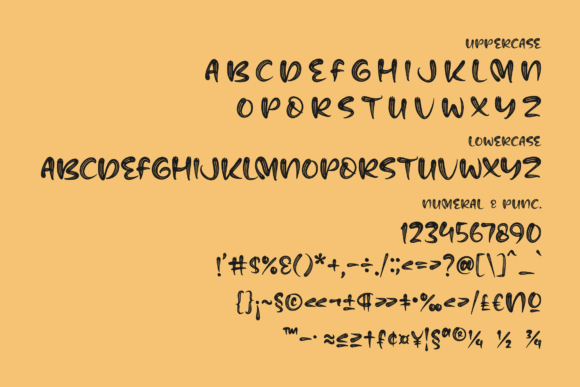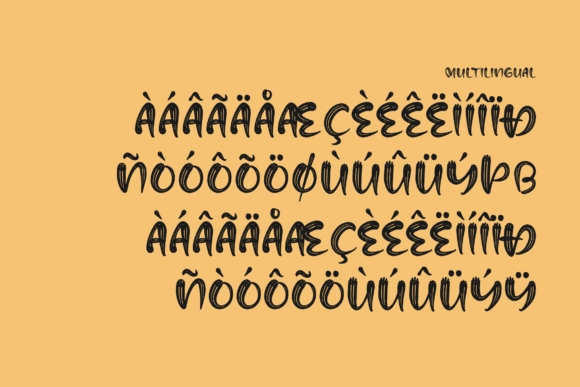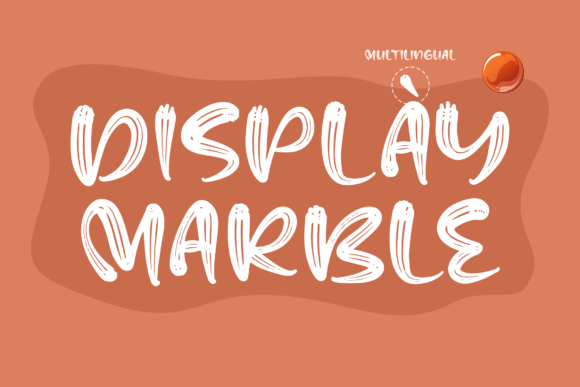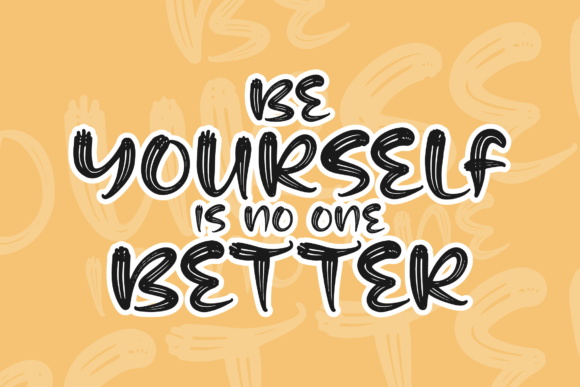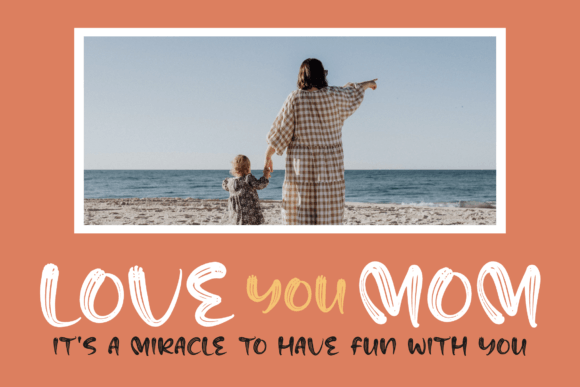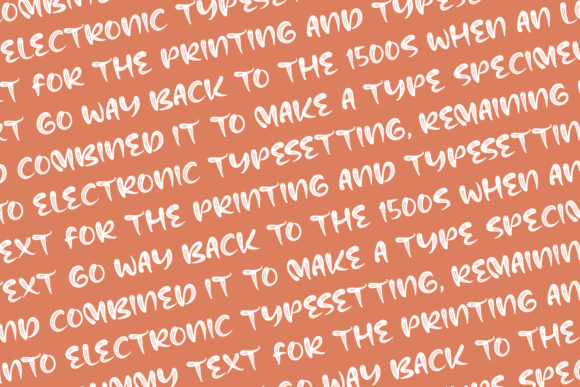
Bring Your Creative Ideas to Life with Display Marble Font
Have you ever stared at a blank canvas, waiting for that perfect spark to ignite your creativity? It’s a feeling many designers know all too well. But what if we told you that the key to unlocking your full potential lies in the perfect font?
Enter Display Marble Font, a stunning script display font designed to elevate your creative ideas to new heights. With its unique, hand-crafted design, Display Marble Font is perfect for adding a touch of sophistication and whimsy to your designs. Whether you’re working on a logo, a brochure, or a website, this font has the power to make your work stand out.
As a designer, you know that the right font can make all the difference. Display Marble Font is a valuable addition to any designer’s toolkit, offering a level of customization and flair that’s hard to find elsewhere. So why settle for ordinary when you can have extraordinary? Try Display Marble Font today and discover a new world of creative possibilities!
Display Marble Font Key Features
- Font Family: Display Marble Font offers a unique, hand-drawn aesthetic with a marble-like texture, making it perfect for titles, headings, and other display typography.
- Font Size: Display Marble Font is designed to be used at larger font sizes, typically ranging from 24px to 48px, to showcase its unique texture and character.
- Resolution: Optimized for high-resolution displays, making it ideal for use in digital design, including web design, mobile apps, and video games.
- Language Support: Supports a wide range of languages, including Latin, Cyrillic, and Greek scripts, making it a versatile choice for global design projects.
- Unique Characteristics: The font’s marble-like texture and hand-drawn aesthetic give it a distinctive, eye-catching look that sets it apart from other display fonts.
Display Marble Font Review
Overall, I think Display Marble Font is a unique and eye-catching font that can add a touch of elegance to your designs ✨. The font’s marble-inspired design gives it a luxurious feel, making it perfect for high-end branding, packaging, or advertising.
Here are some things that I think work well with Display Marble Font:
- The font’s high contrast between the light and dark elements creates a sense of depth and dimensionality.
- The marble texture adds a sense of sophistication and refinement.
- The font is highly legible, even at large sizes.
However, there are some limitations to consider ⚠️:
- The font may be too ornate for some designs, making it difficult to read or use as a body font.
- The font is not suitable for small text or body copy, as the marble texture can become overwhelming.
- The font may not be suitable for digital displays, as the texture can become pixelated.
Overall, I think Display Marble Font is a great choice for designers who want to add a touch of luxury and sophistication to their designs. However, it’s essential to use it judiciously and consider the limitations mentioned above.
The Display Marble Font is ideal for:
– Creating eye-catching headlines and titles.
– Adding a touch of elegance to invitations and event materials.
– Designing modern and minimalist branding materials.
– Experiment with different font sizes and colors to create a unique look.
– Use the Display Marble Font in combination with other fonts for a layered, sophisticated design.
– Don’t be afraid to try out bold, bright colors to make your design stand out.
Alternatives to Display Marble Font for Designers
Bebas Neue is a modern sans-serif font with a geometric and elegant feel. It’s suitable for use in headings and titles, particularly in modern and minimalist designs. Bebas Neue is more versatile and legible than Display Marble Font, making it a better choice for body text.
Playfair Display is a luxurious and elegant serif font, ideal for use in high-end designs, luxury brands, and special occasions. It’s less versatile than Display Marble Font but provides a more sophisticated and refined feel. Use Playfair Display when you need to convey luxury, elegance, and sophistication.
What are the technical specifications of Display Marble Font?
Display Marble Font features a robust character set, including over 800 glyphs, and supports multiple languages. The font has a x-height of 6.5 points and a cap height of 12 points, making it suitable for a wide range of design projects. The font also includes advanced OpenType features, such as ligatures, alternates, and swashes.